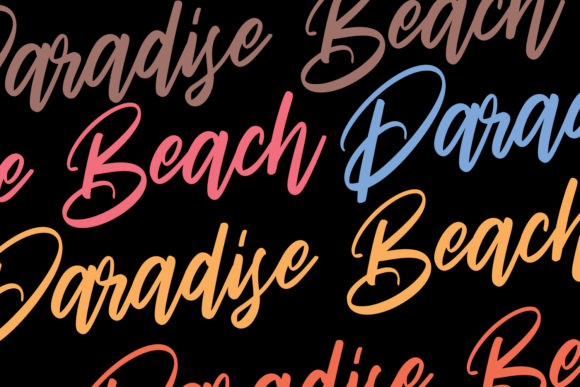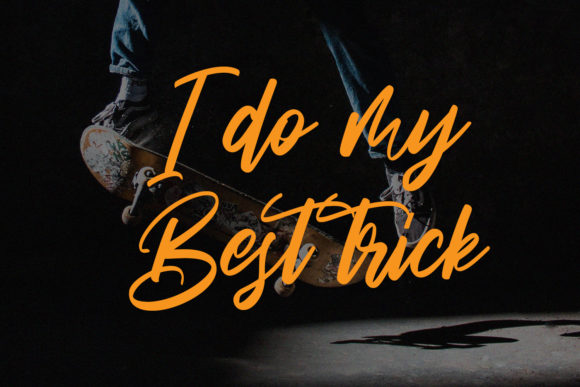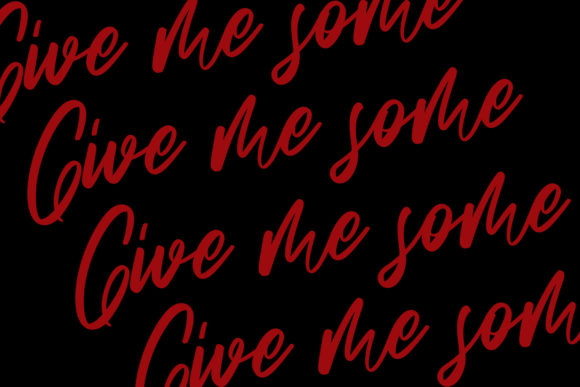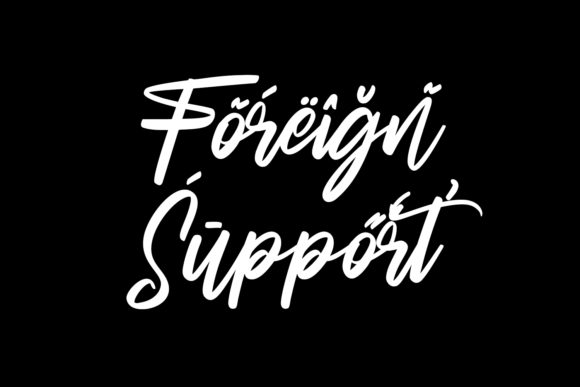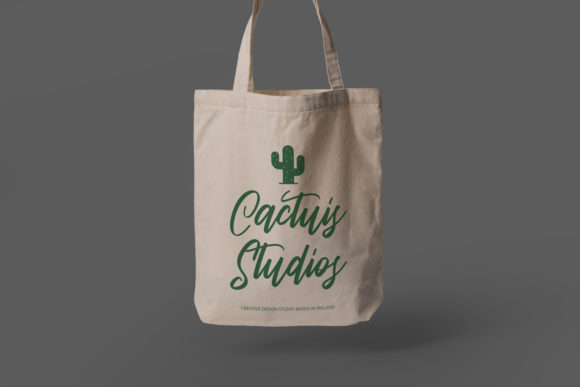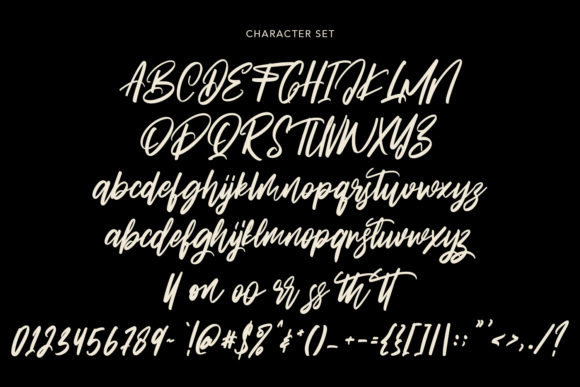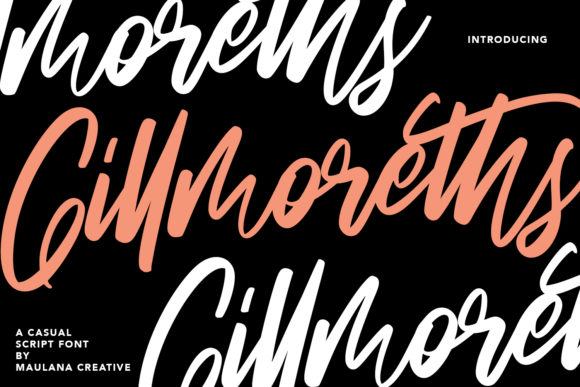
Introducing Gillmoreths Font: The Ultimate Modern Script Font for Designers and Crafters
In the world of typography, fonts play a vital role in bringing ideas to life. A well-crafted font can elevate a design, making it more engaging, readable, and memorable. For designers and crafters looking for a fresh and modern script font to take their creations to the next level, look no further than Gillmoreths. In this article, we’ll dive into the world of Gillmoreths, exploring its features, benefits, and uses, as well as provide tips on how to make the most of this spectacular font.
What is Gillmoreths Font?
Gillmoreths is a modern script font that exudes elegance, sophistication, and creativity. Designed with the latest typographic trends in mind, Gillmoreths is perfect for designers and crafters seeking a fresh and unique font to add to their arsenal. Its clean lines, flowing curves, and carefully crafted letterforms make it an excellent choice for a wide range of design projects, from branding and advertising to packaging and digital media.
Key Features of Gillmoreths Font
So, what makes Gillmoreths stand out from the crowd? Here are some of its key features:
- Modern and Fresh Design: Gillmoreths boasts a contemporary design that’s perfect for designers and crafters looking for a font that’s both stylish and on-trend.
- Elegant and Sophisticated: With its flowing curves and refined letterforms, Gillmoreths exudes elegance and sophistication, making it ideal for high-end branding and luxury designs.
- Highly Versatile: Whether you’re designing a logo, brochure, or social media graphic, Gillmoreths is highly versatile and can be used across a wide range of design projects.
- Easy to Read: Despite its elegant design, Gillmoreths is highly legible, making it perfect for body text and longer design projects.
Benefits of Using Gillmoreths Font
So, why should you choose Gillmoreths for your next design project? Here are just a few benefits of using this amazing font:
- Stand Out from the Crowd: With Gillmoreths, you can create designs that stand out from the crowd and leave a lasting impression on your audience.
- Elevate Your Brand: Whether you’re designing a logo, business card, or website, Gillmoreths can help elevate your brand and make it look more professional and polished.
- Save Time: With its highly legible design and versatile nature, Gillmoreths can save you time and effort in your design projects, allowing you to focus on the creative aspects of your work.
Tips for Using Gillmoreths Font
To get the most out of Gillmoreths, here are a few tips to keep in mind:
- Use it as a Headline Font: Gillmoreths is perfect for headlines and titles, where its elegant design and flowing curves can really shine.
- Pair it with Other Fonts: For added visual interest, try pairing Gillmoreths with other fonts, such as a clean sans-serif or a bold serif font.
- Experiment with Colors and Textures: Don’t be afraid to experiment with different colors and textures to add depth and interest to your designs.
In conclusion, Gillmoreths is a fresh and modern script font that’s perfect for designers and crafters looking to elevate their designs and create spectacular creations. With its elegant design, highly legible letterforms, and versatile nature, Gillmoreths is an excellent addition to any designer’s font library. So why wait? Download Gillmoreths today and start bringing your ideas to life in style!